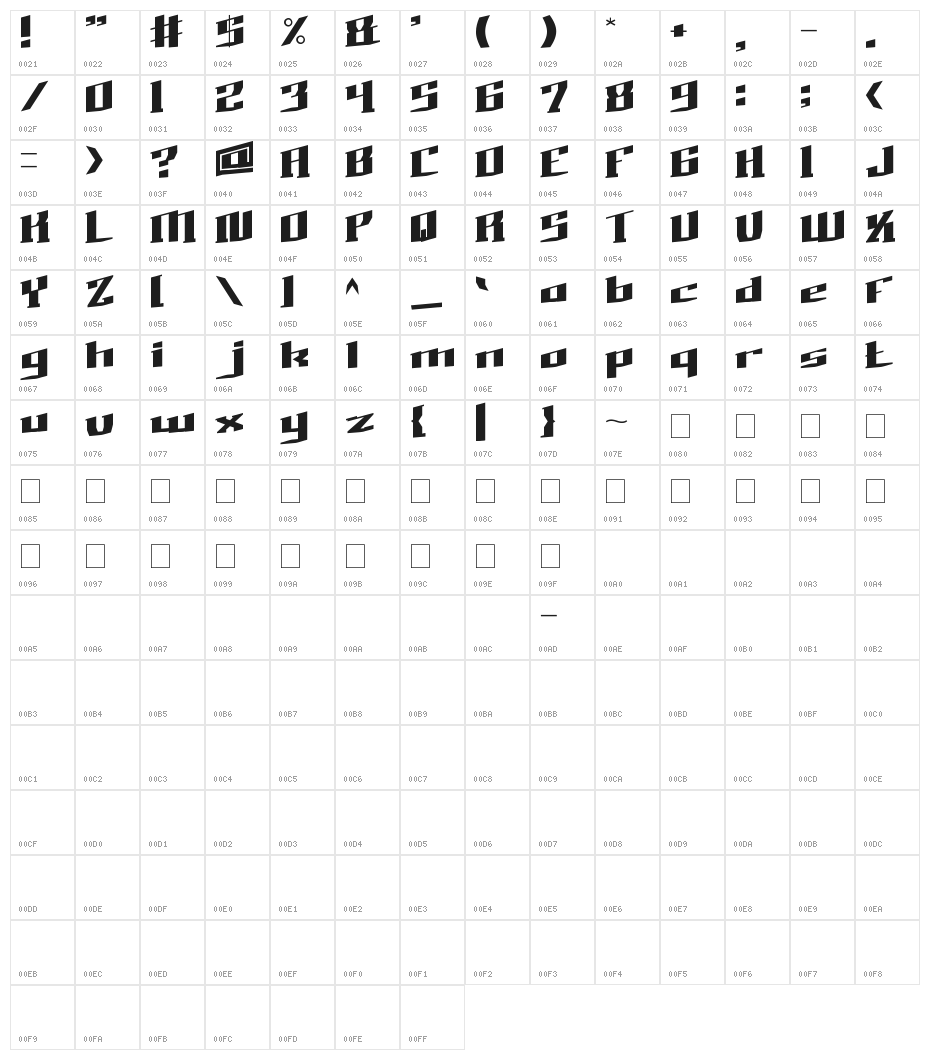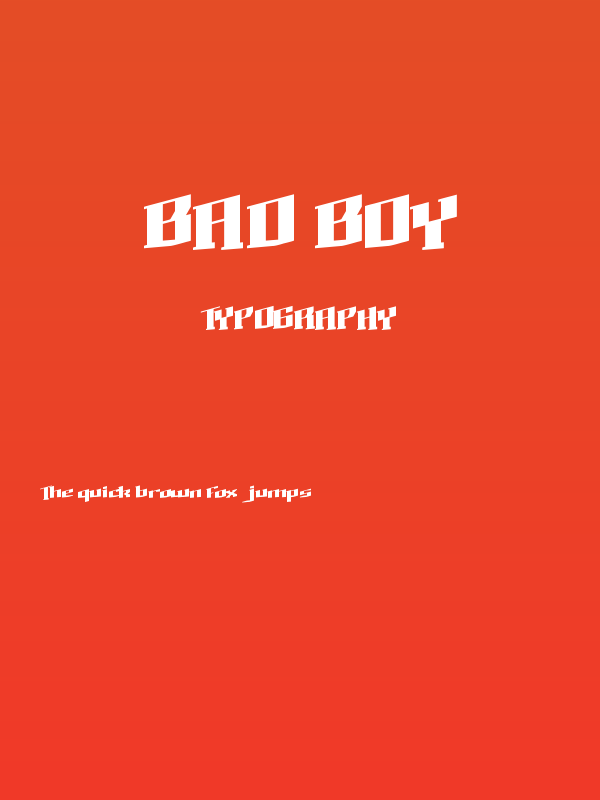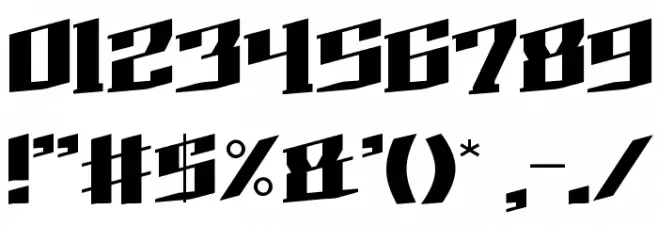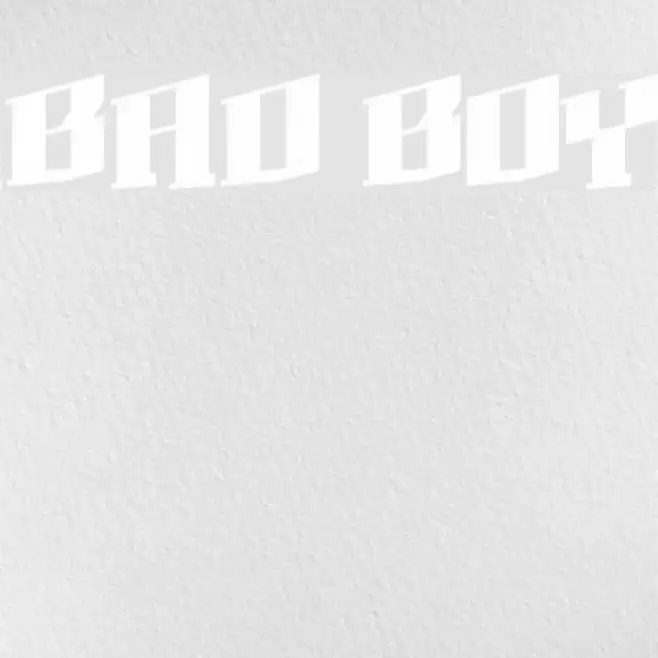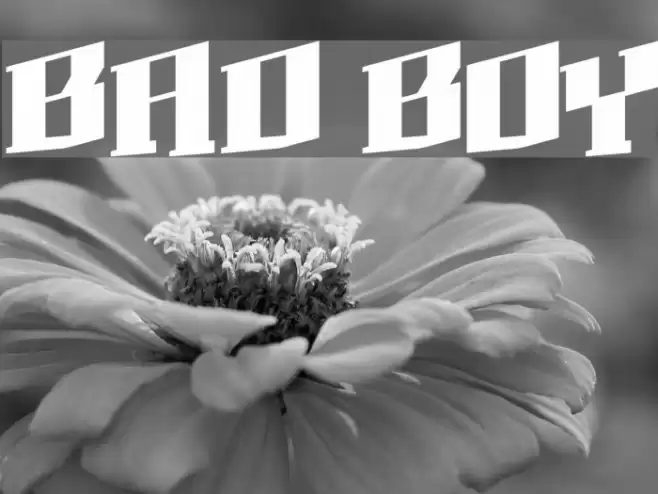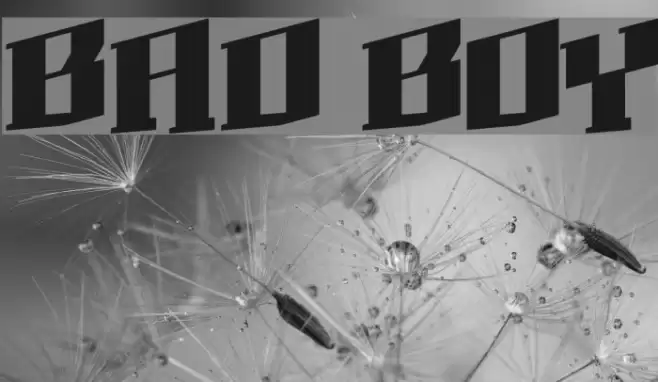
BAD BOY Font
BAD BOY Description
This font features a bold and edgy design with sharp, angular lines and a distinct geometric style. The uppercase letters are particularly striking, with a strong presence and a slightly condensed form. The lowercase letters maintain the same angular aesthetic, creating a cohesive look throughout. Numbers and special characters are designed to match the boldness and geometric nature of the alphabet, making them stand out effectively. The overall style is reminiscent of graffiti or street art, giving it a rebellious and modern feel. The font's high contrast in stroke thickness adds to its dramatic appearance, making it suitable for attention-grabbing designs.
| Overall Style | Modern, Edgy, Rebellious |
| Proposed Projects | Ideal for use in posters, album covers, streetwear branding, and any project requiring a bold, edgy aesthetic. |